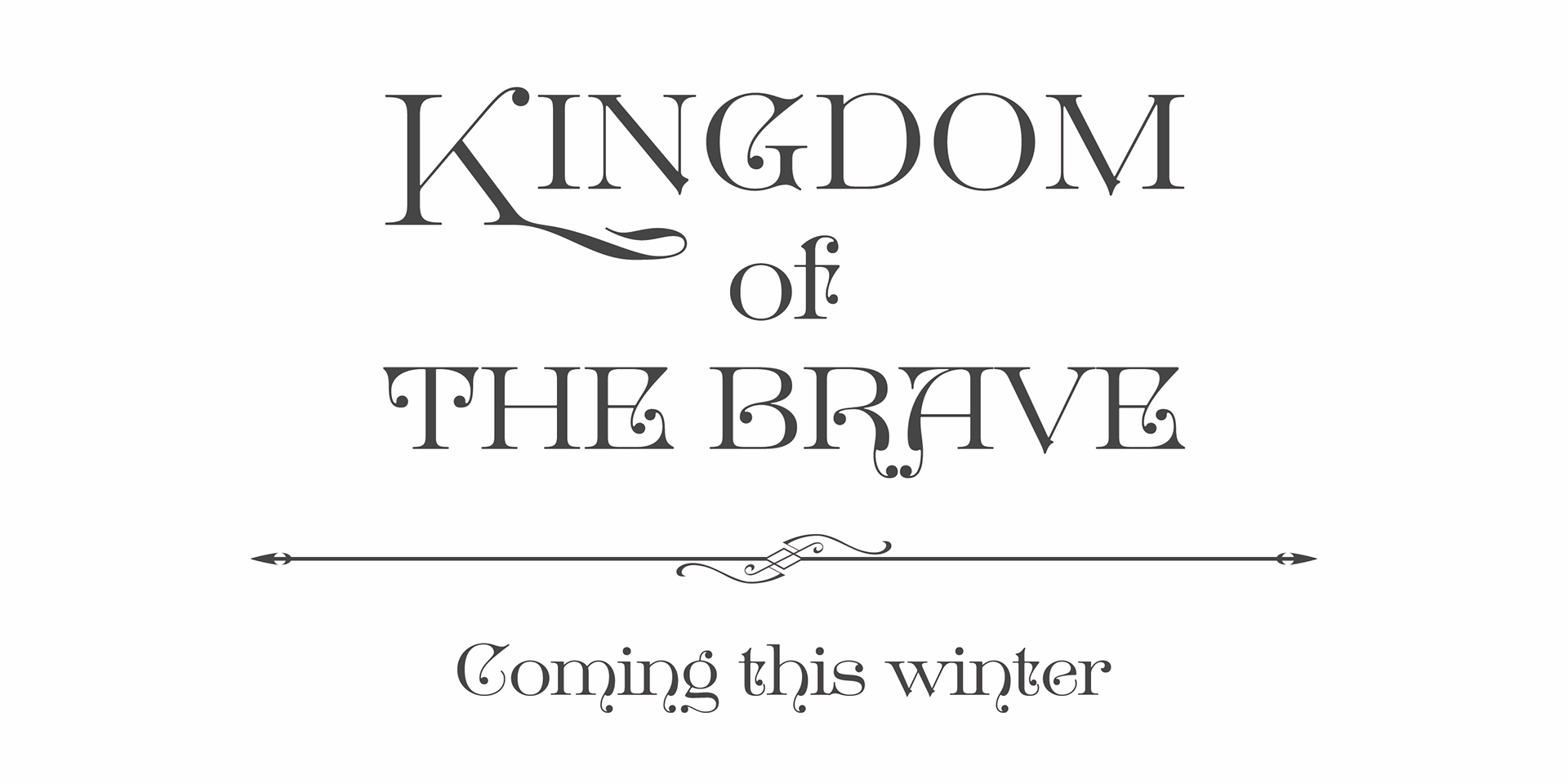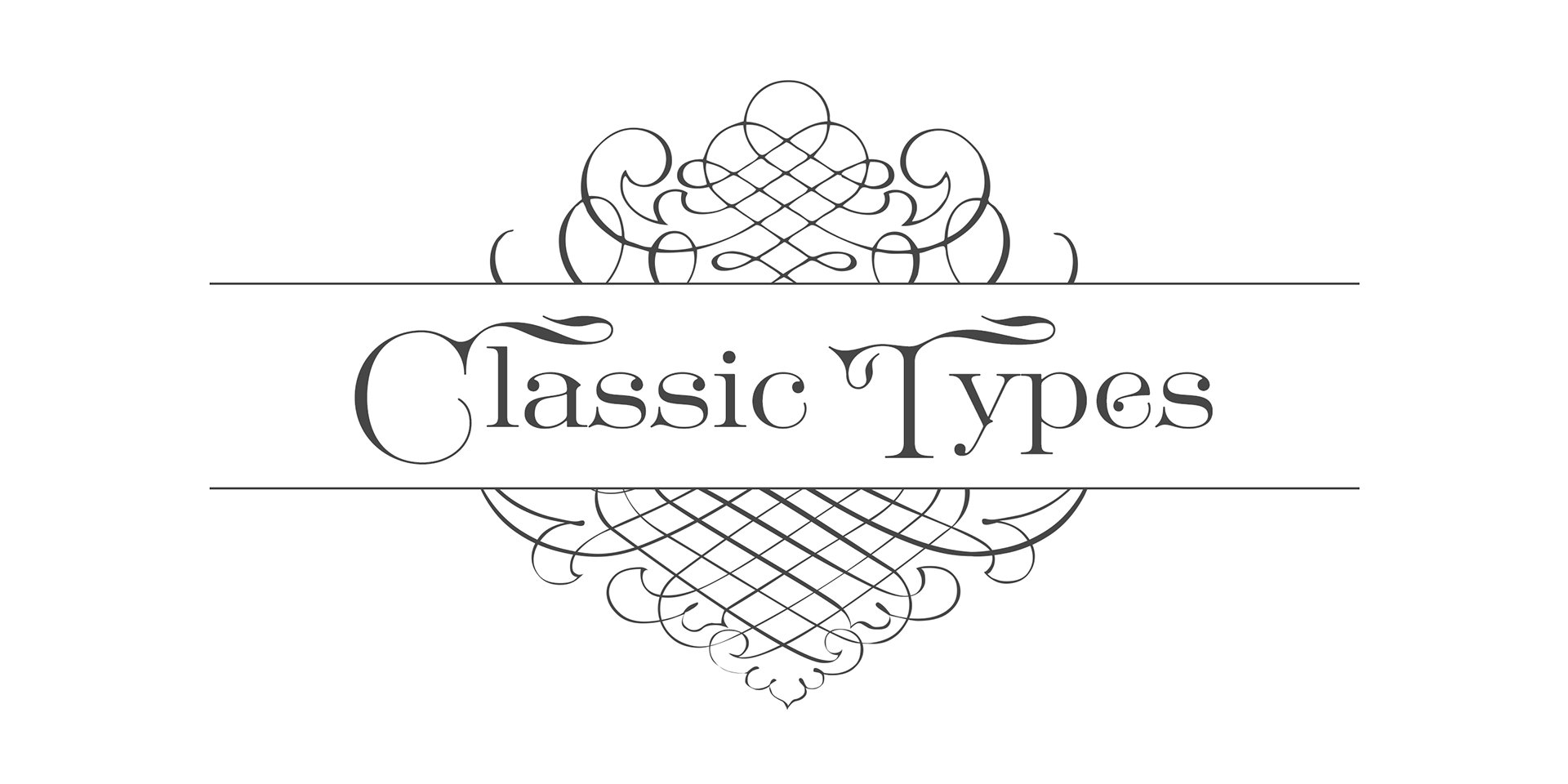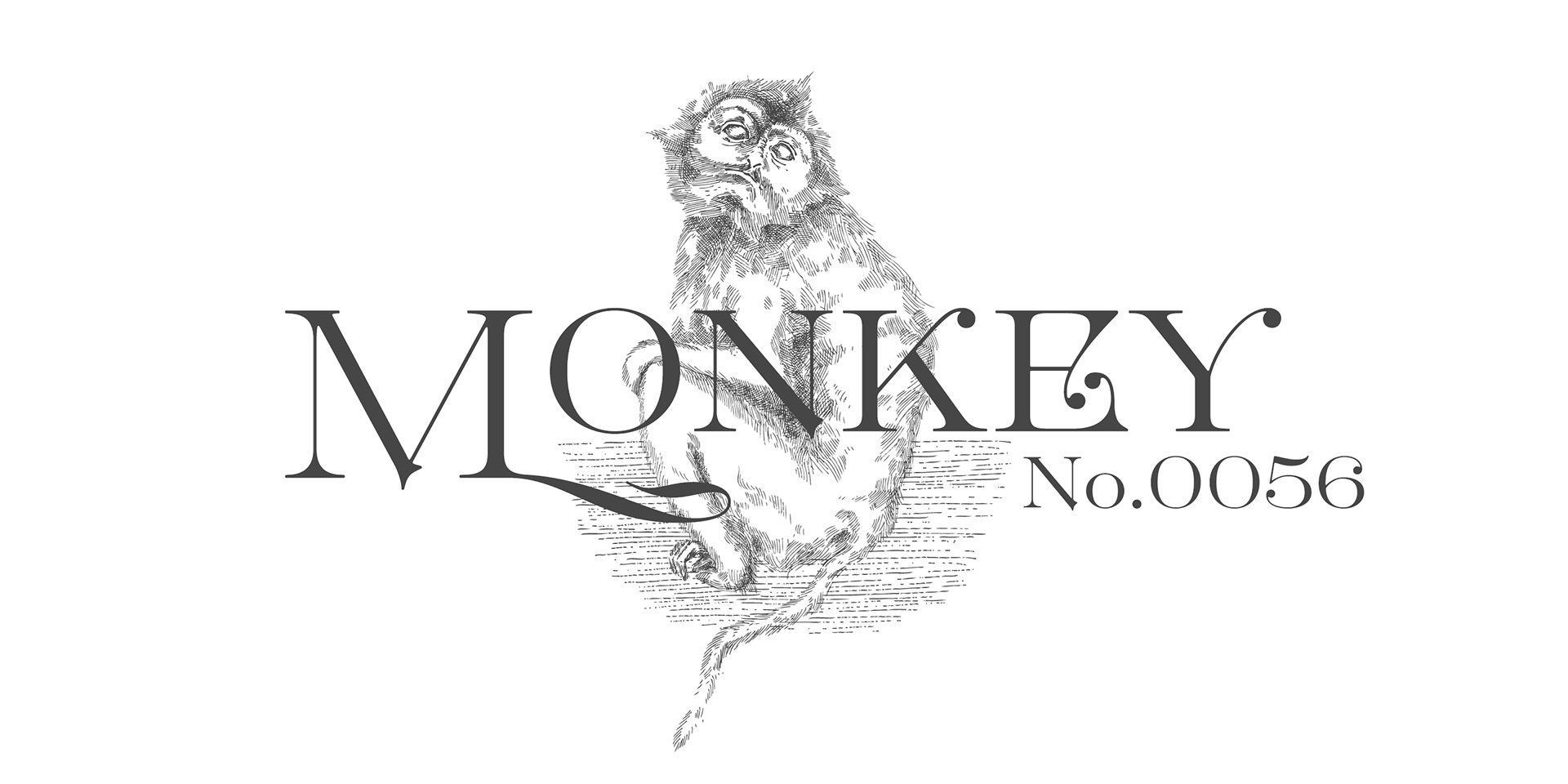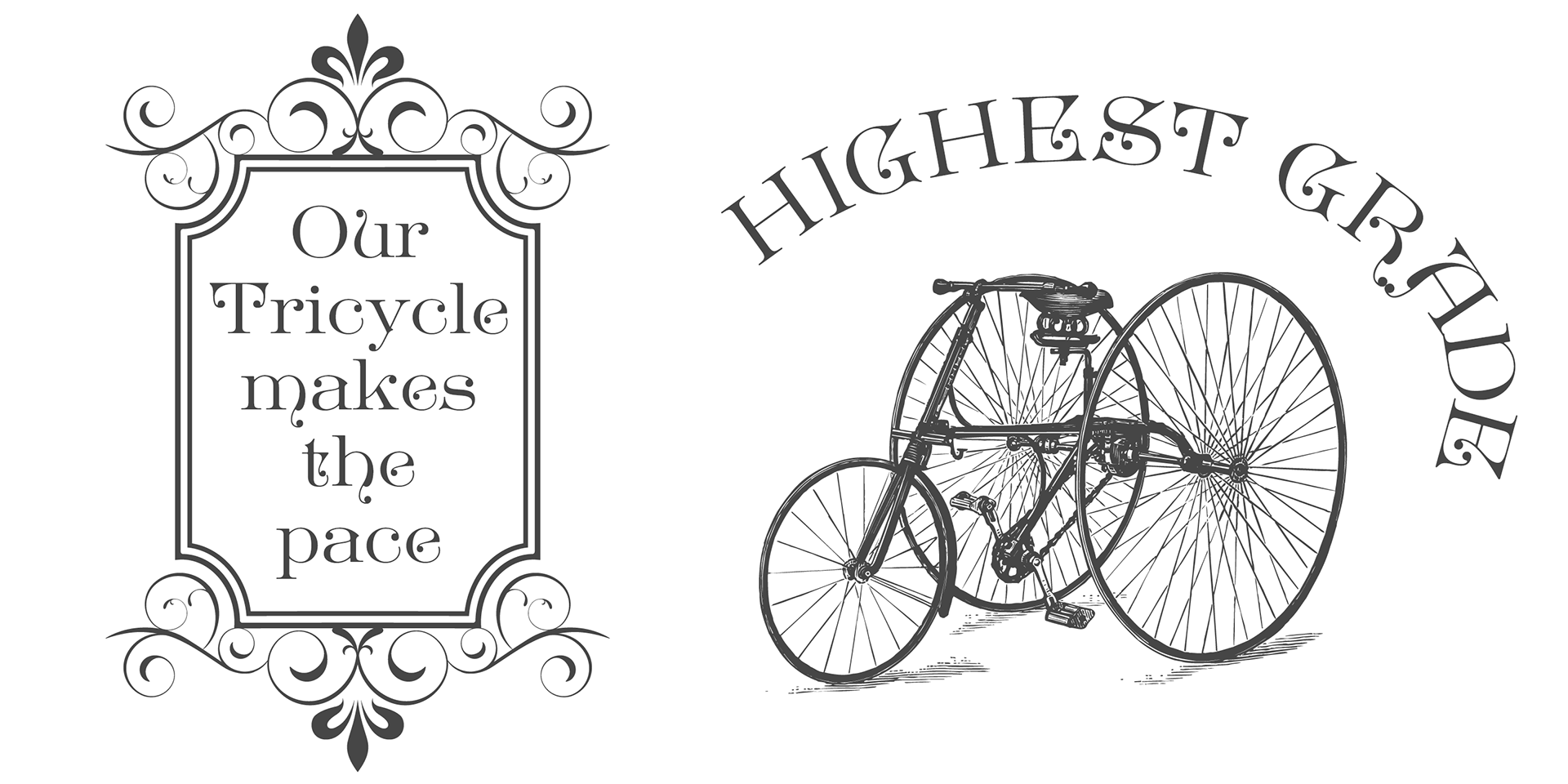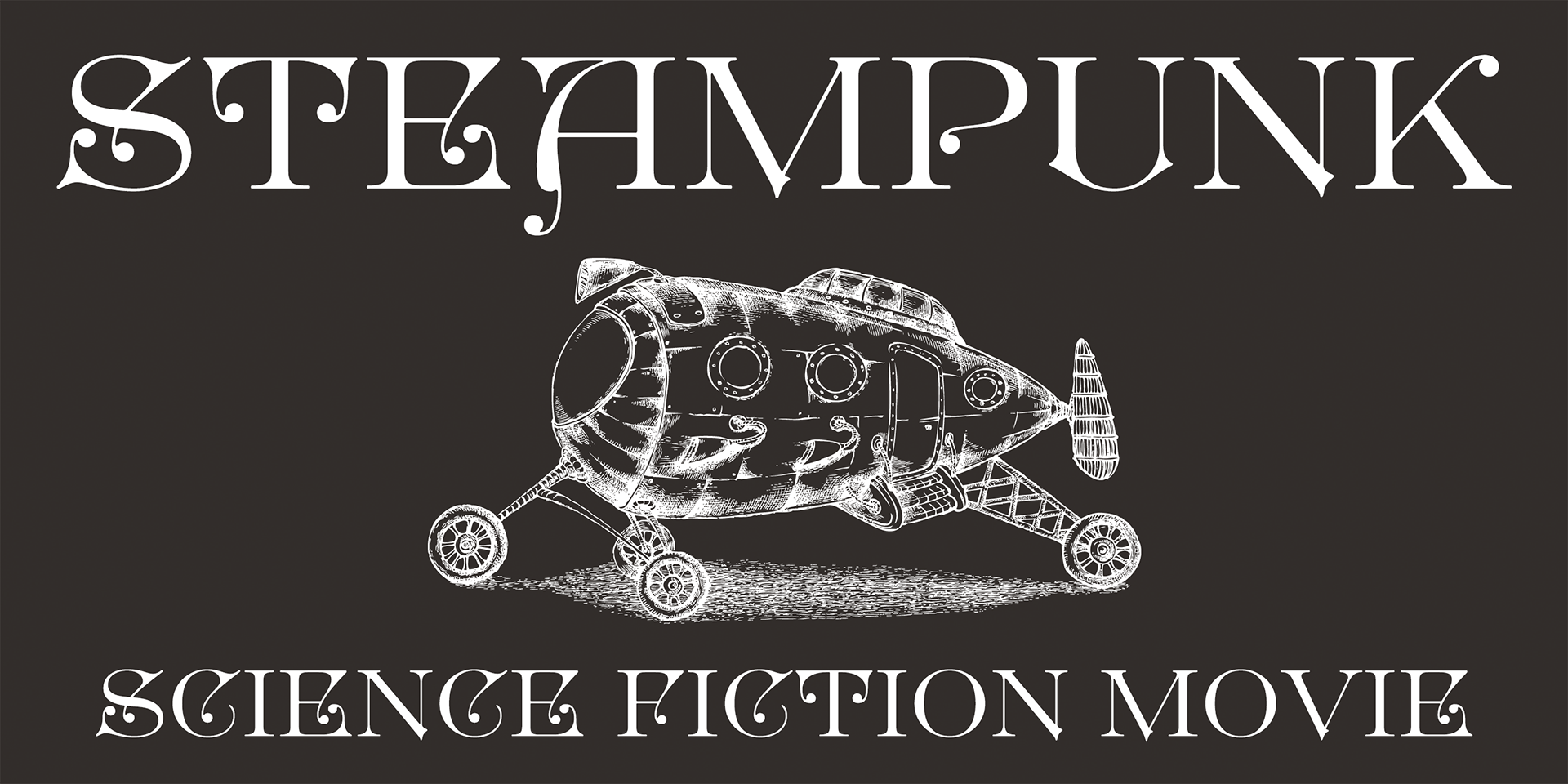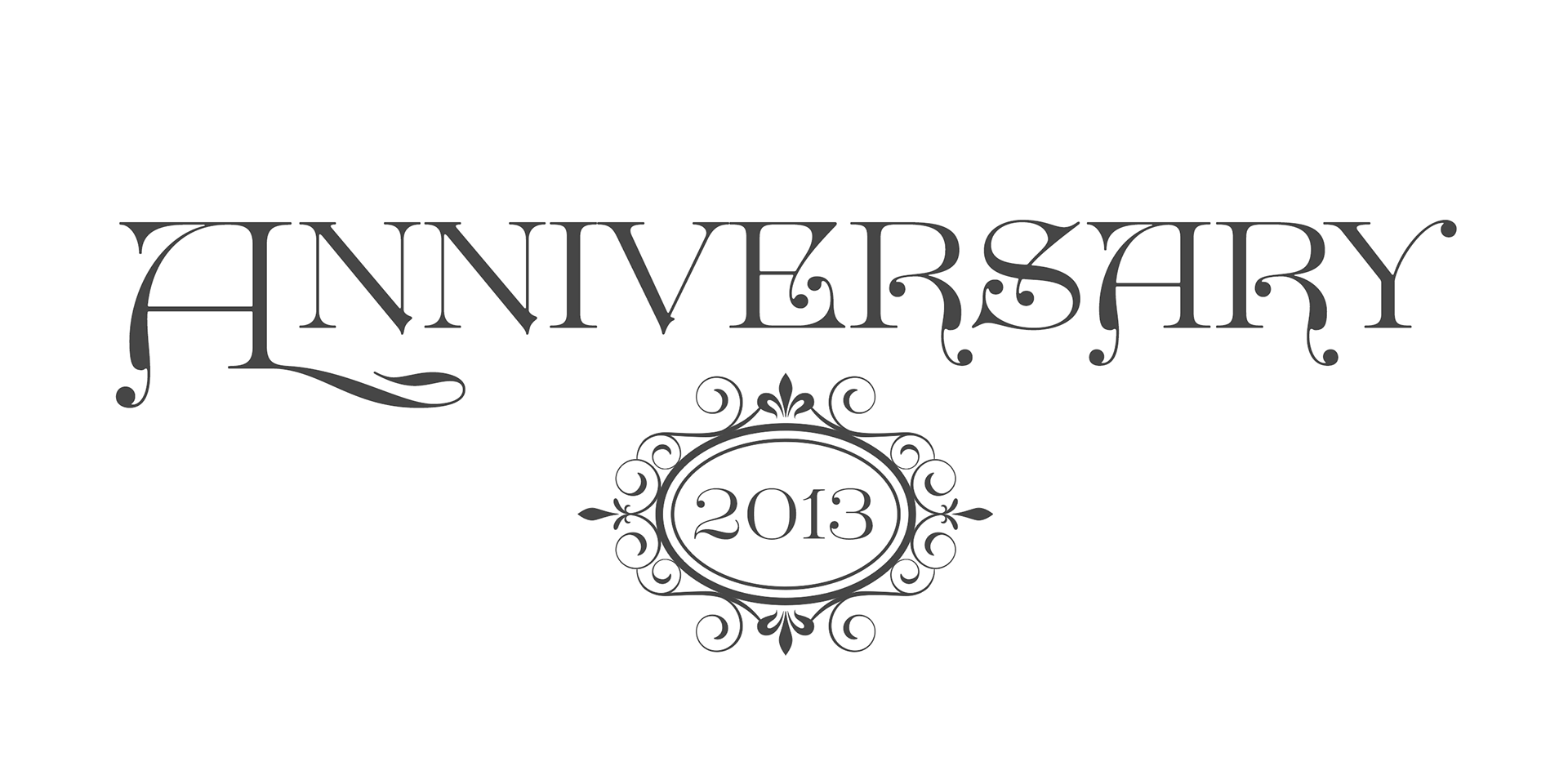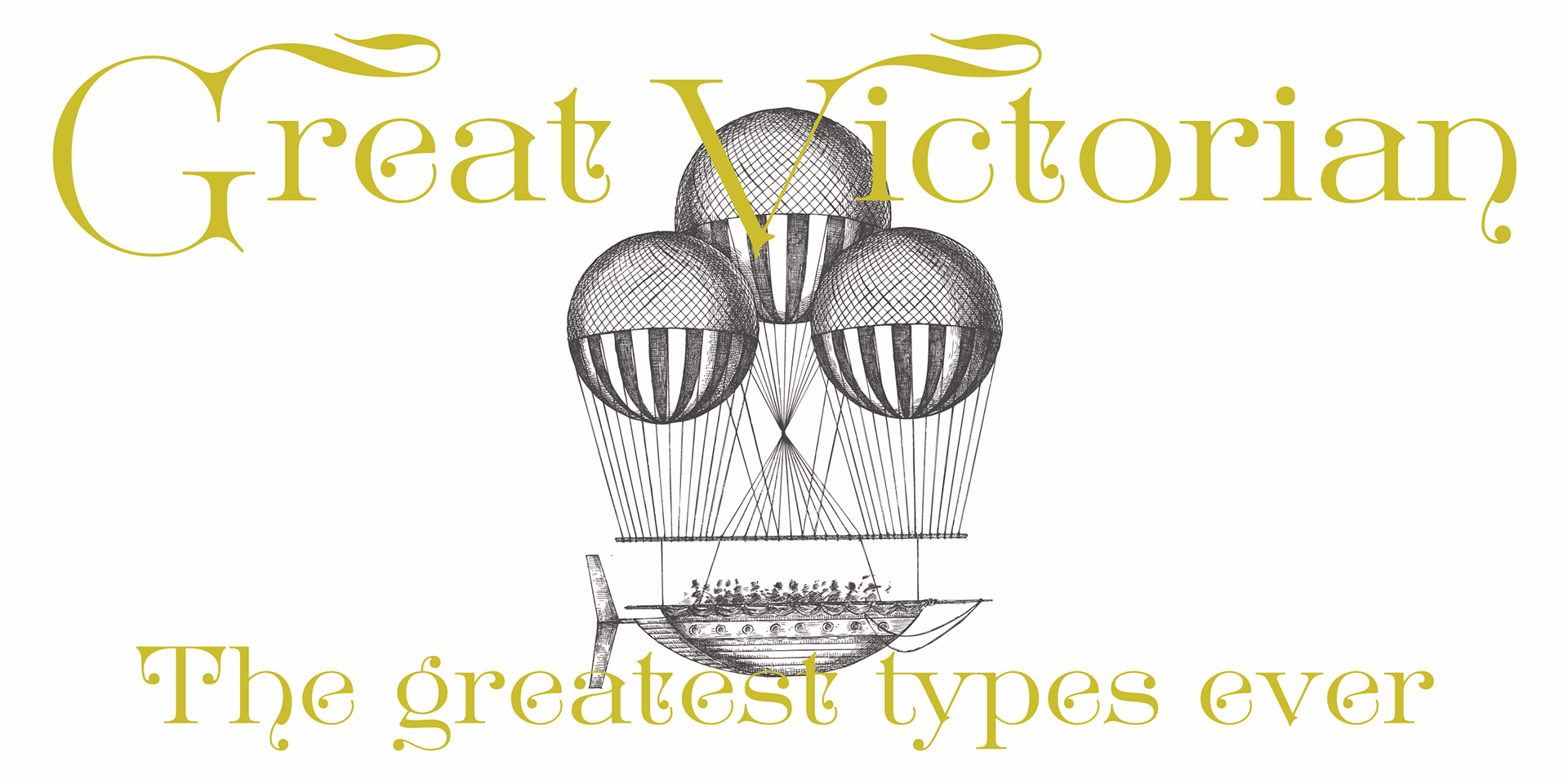
Great Victorian
Great Victorian is a decorative typeface based on Euclid and Euclid Initials, originally issued by the Cleveland Type Foundry in the late 19th century.
It captures the ornate elegance and craftsmanship of Victorian-era typography, making it ideal for vintage-inspired designs.